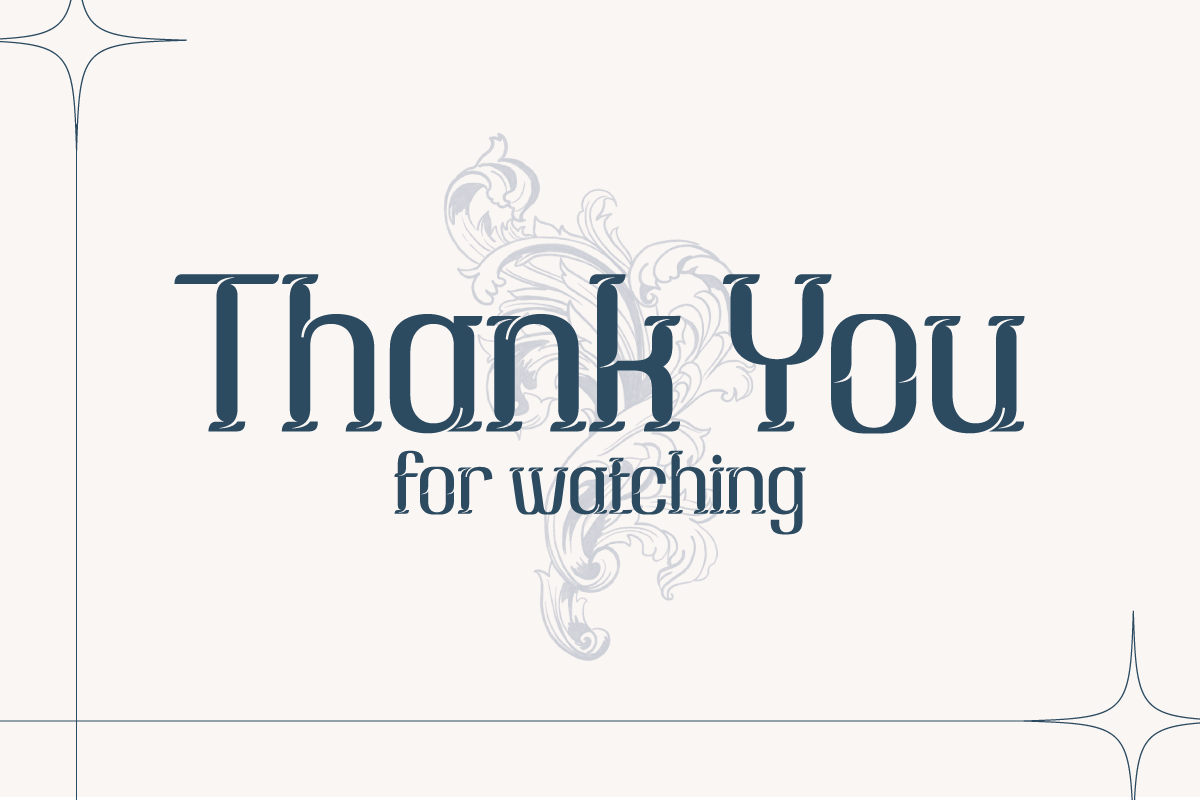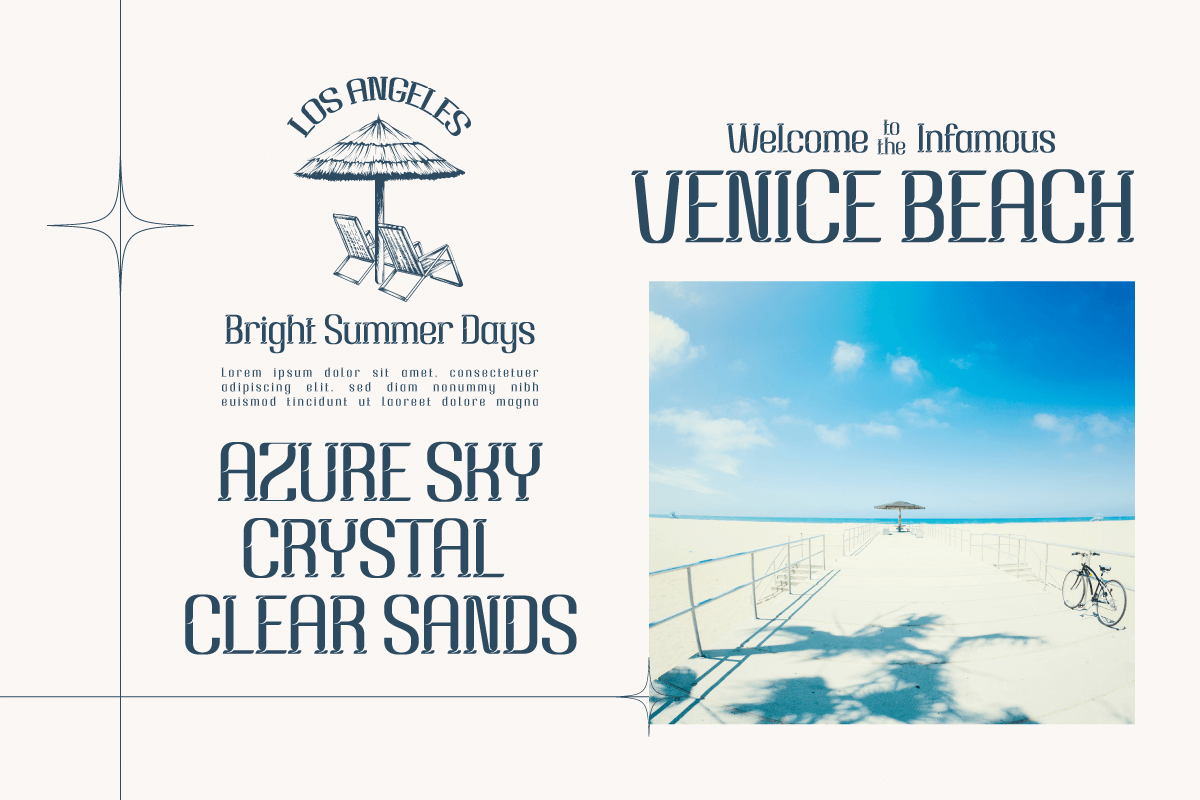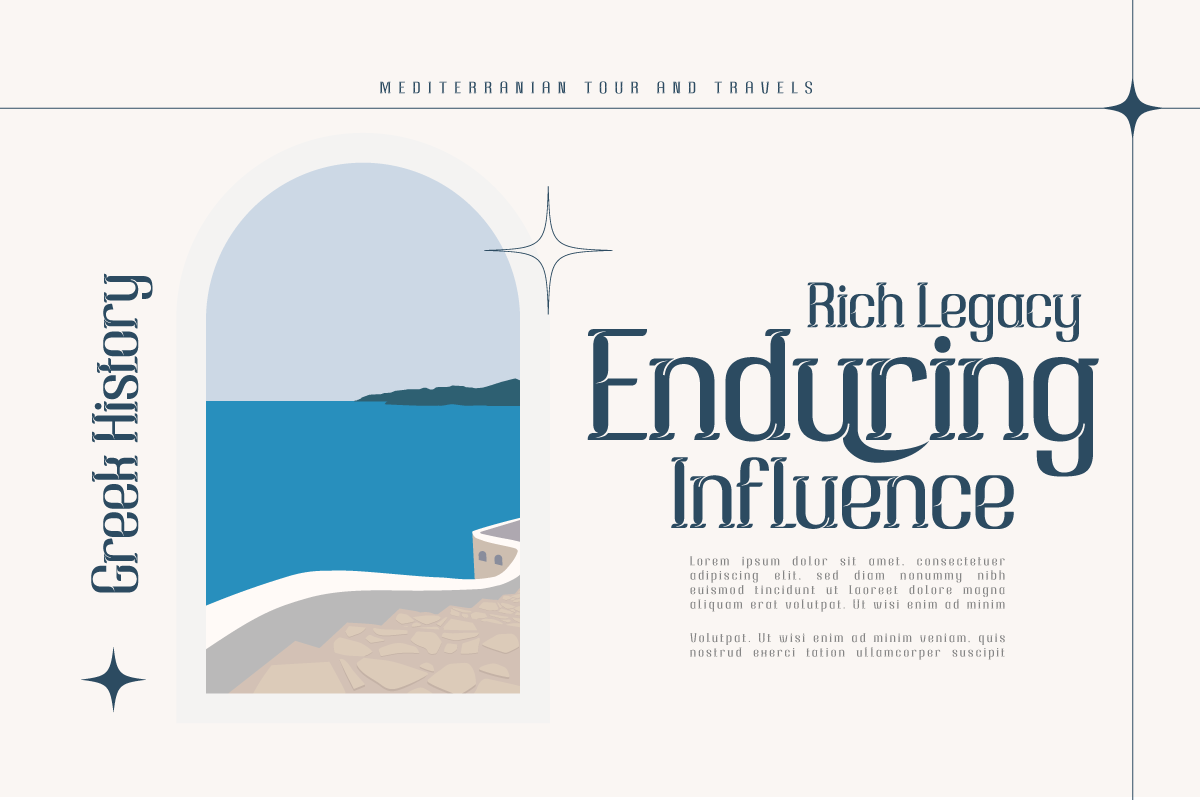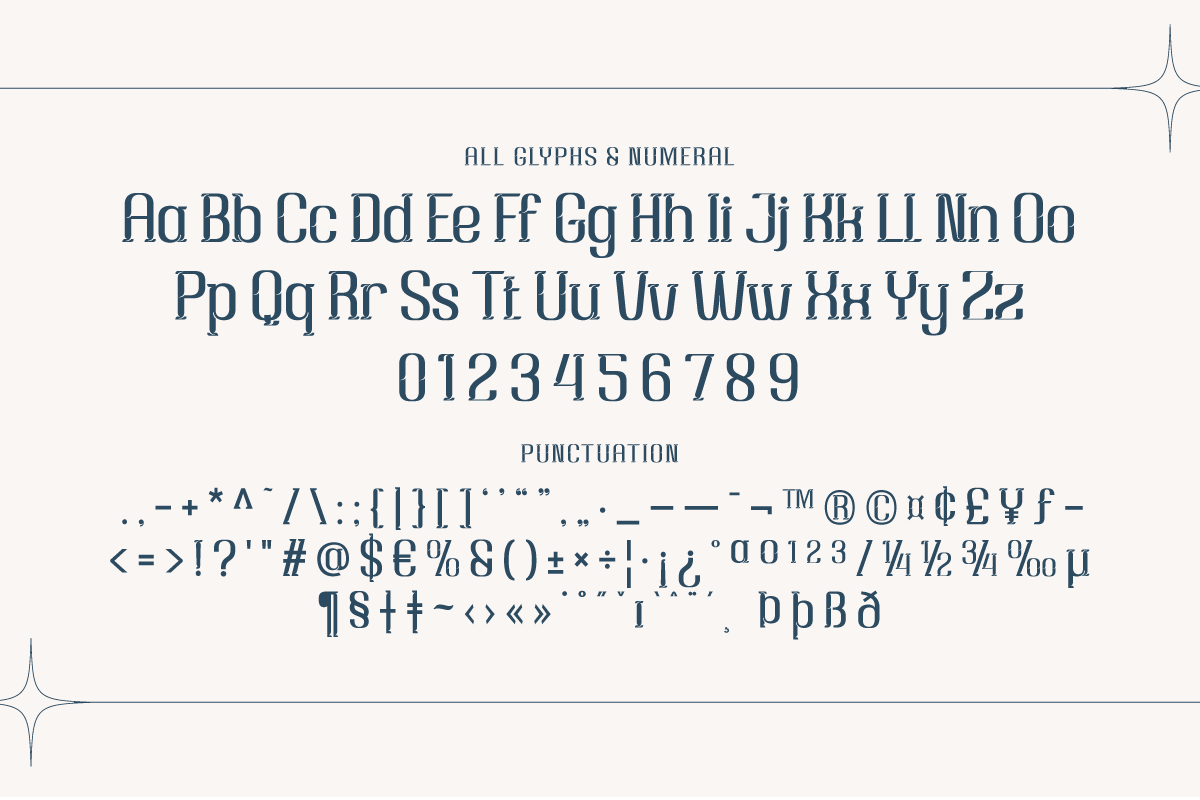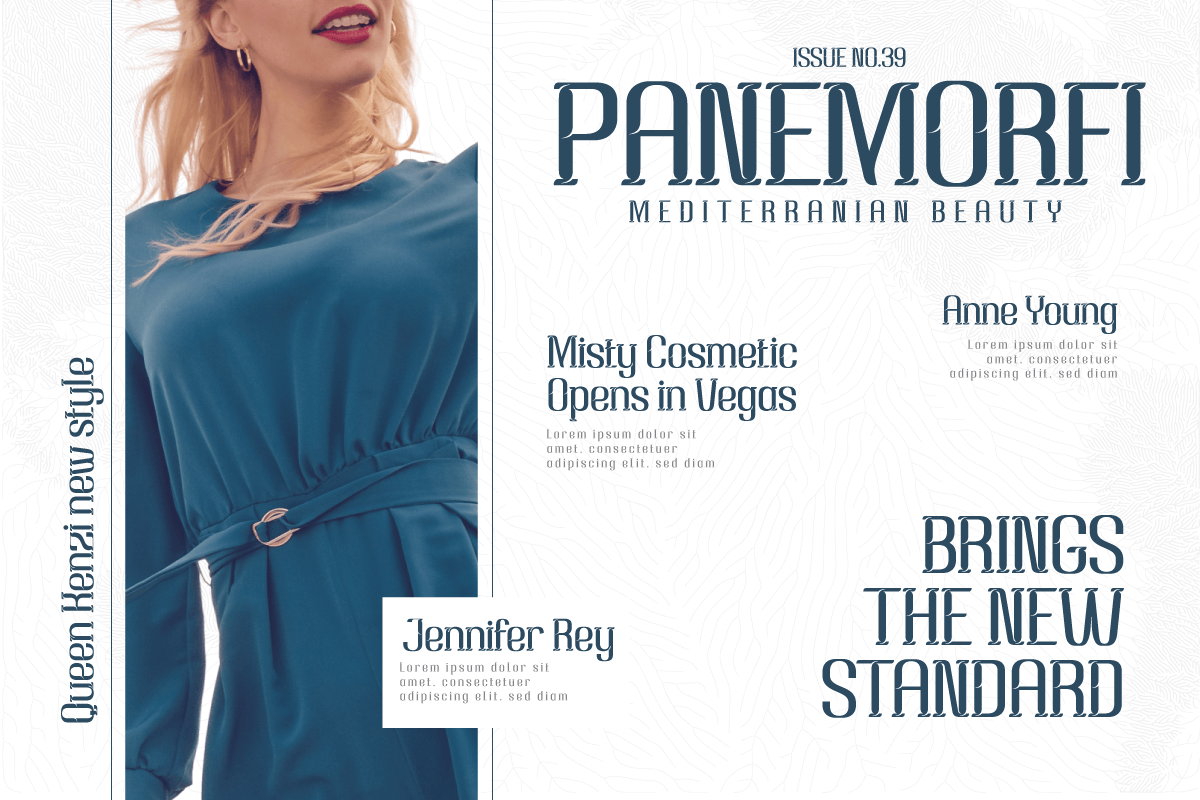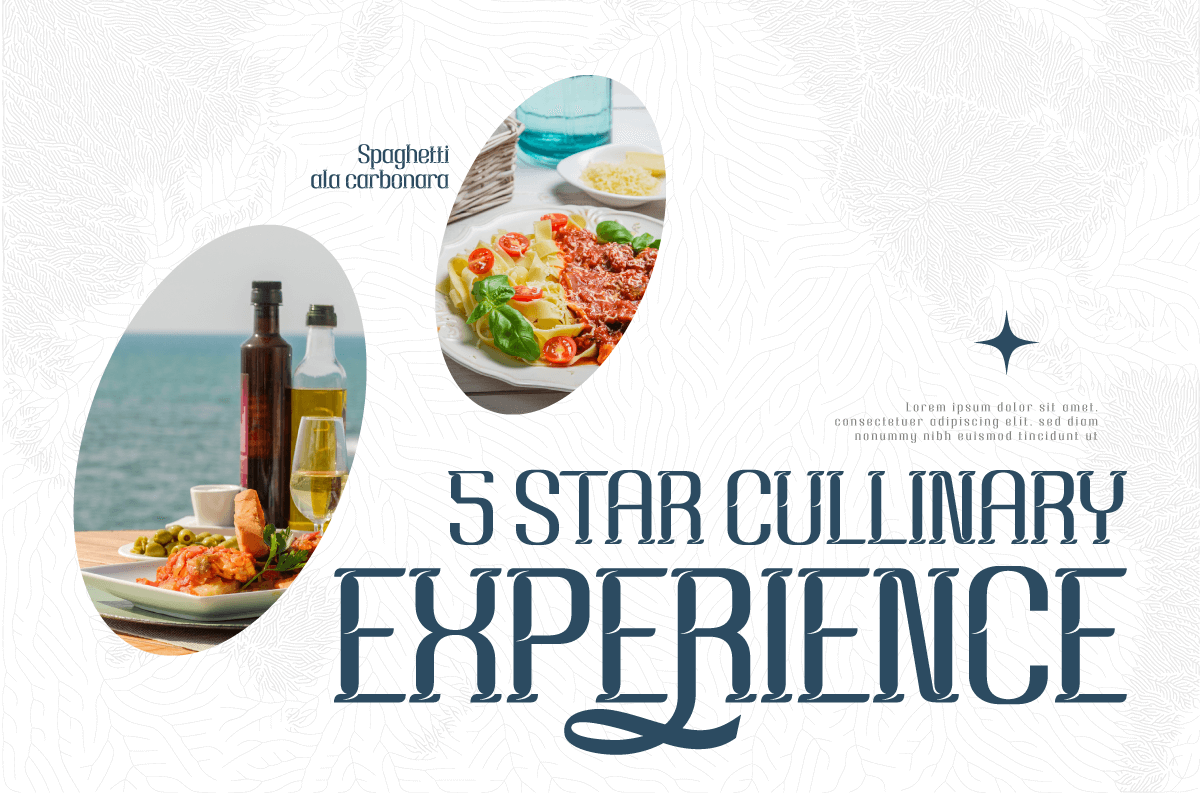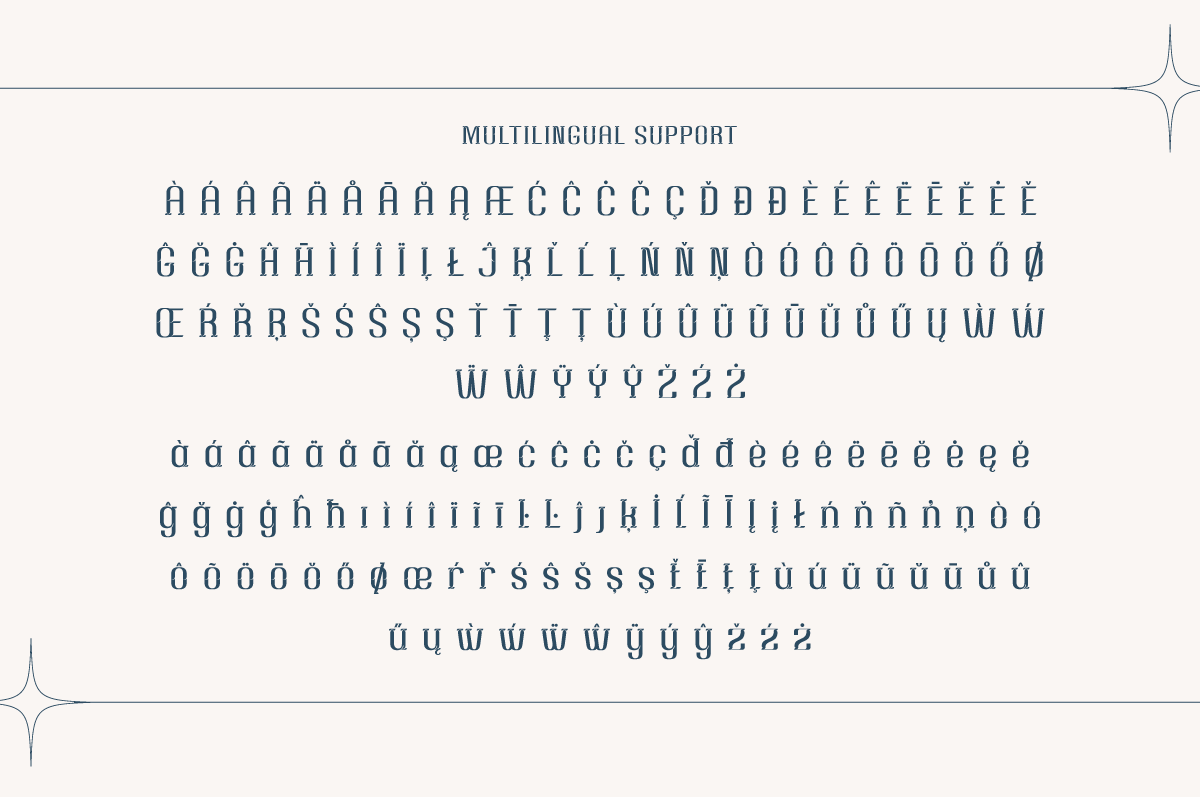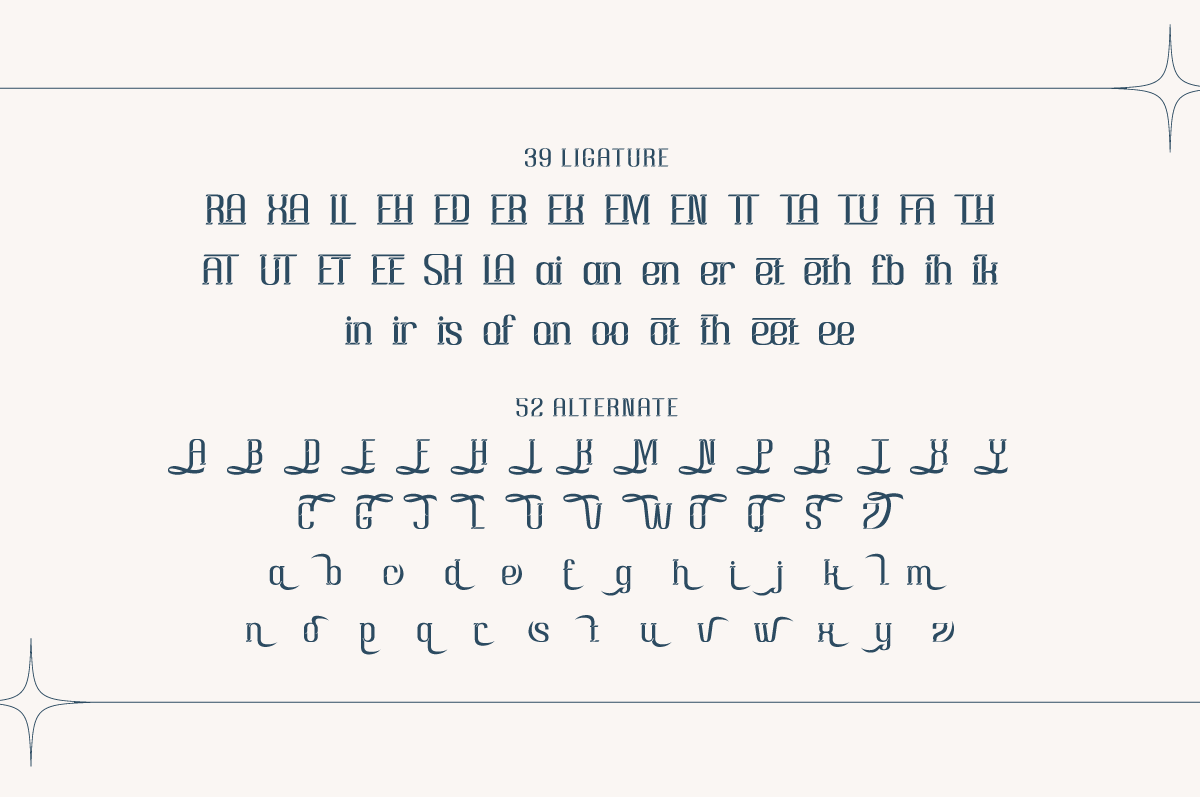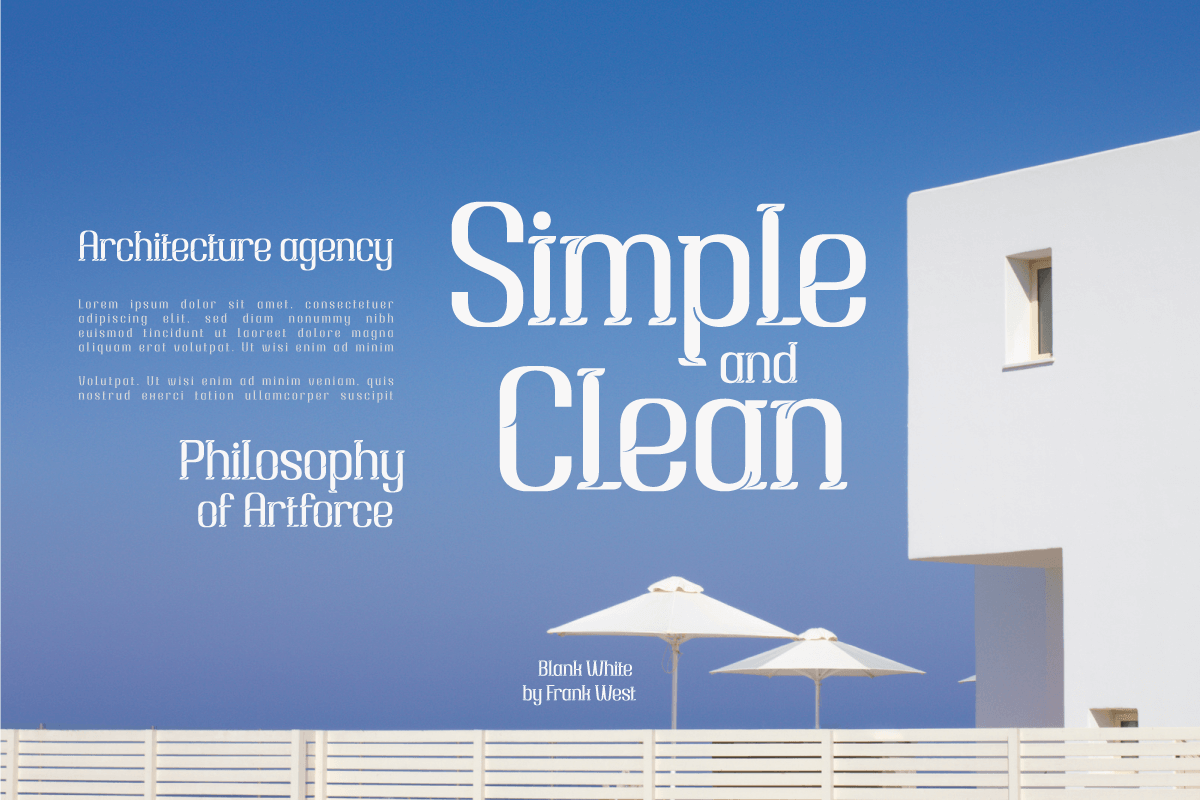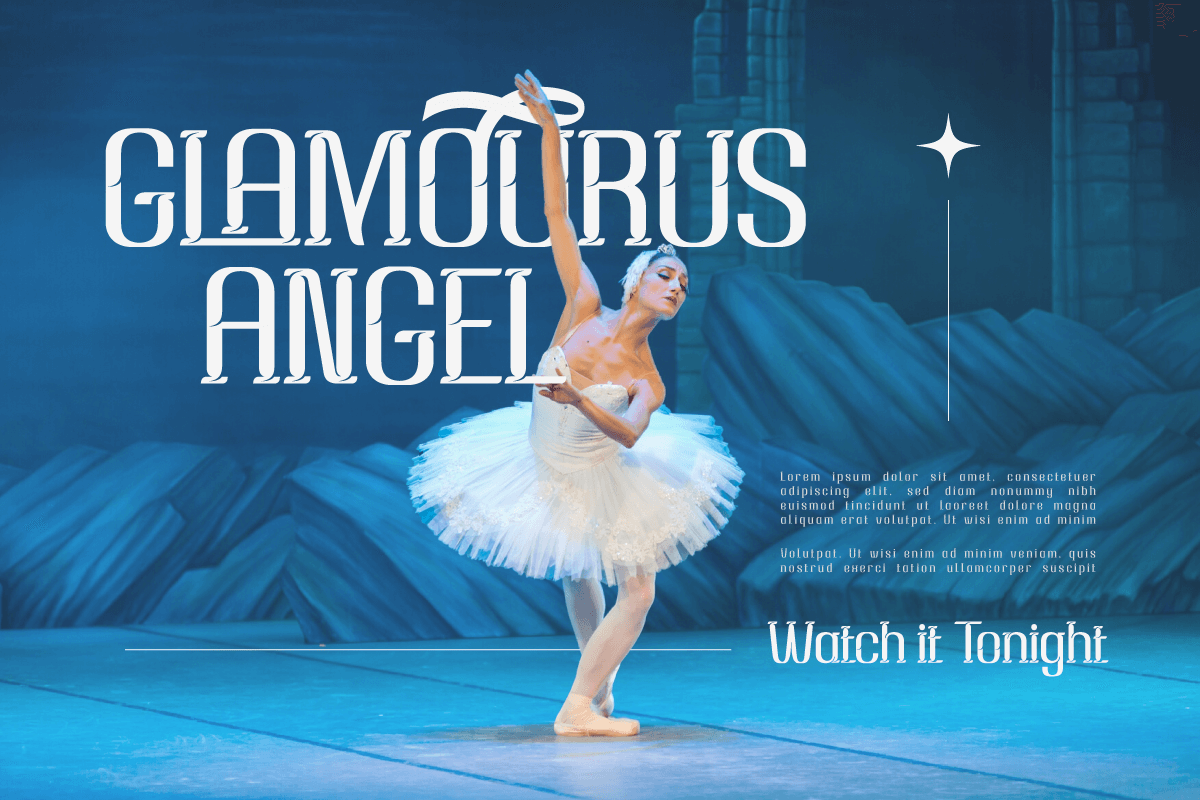
Hoojuy | Serif Classic Modernism
Hoojuy is a classic serif typeface ideal for projects involving classic or retro modernism. This font’s stylish and refined attributes will add a distinctive touch to your designs.
Hoojuy’s distinctive characteristics, like ligatures and alternatives, give it versatility and generate unexpected changes in the appearance of your text. You may quickly change the look and feel of your creative work.
Furthermore, Hoojuy supports multilingualism, therefore it may be used for a variety of languages worldwide. This allows you to reach a global audience and increase the visual impact of your designs.
By using Hoojuy as the primary typeface for your project, you’ll add an appealing modern twist to your classic style. Use Hoojuy right away to add the elegance of typography to your outstanding design.
Alternate, Ligature
Fonts include Multilingual support